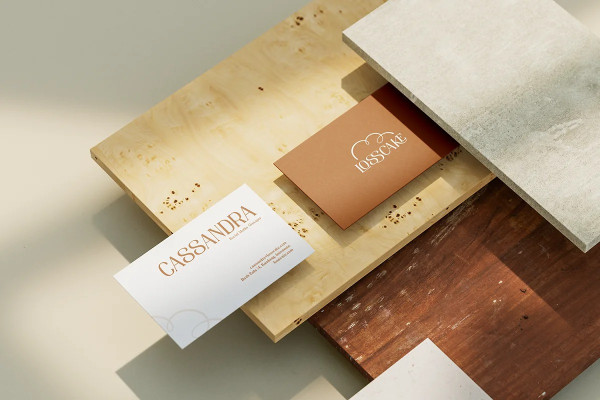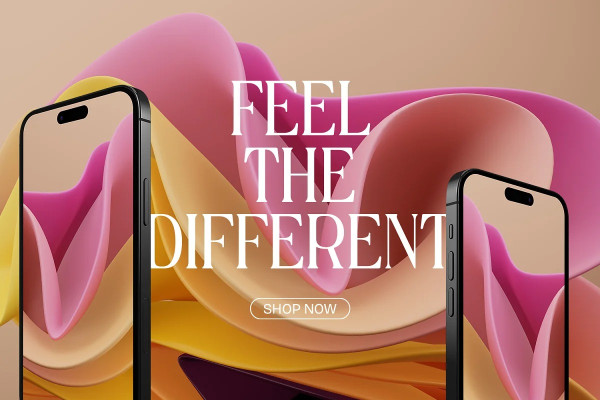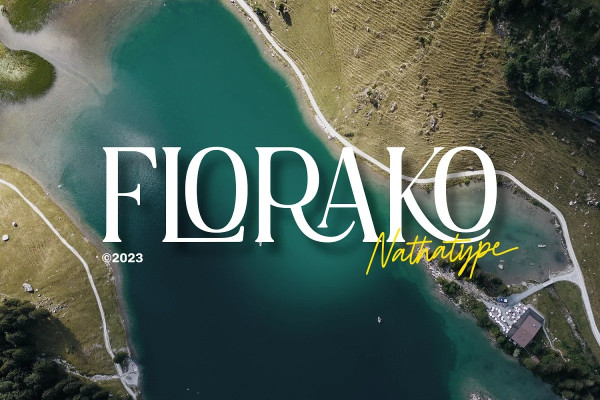
Florako Font
Florako Font is a mesmerizing serif font designed with an elegant and modern touch. With its lightweight, this typeface exudes a sense of delicacy and refinement, adding a touch of sophistication to your creative projects. The slender letterforms with precise lines and graceful curves embodies the perfect balance between elegance and modernity.
The clean and refined serifs lend a classic touch to the font, while the contemporary styling infuses it with a fresh and current vibe. This harmonious fusion creates a captivating aesthetic that is both timeless and on-trend. The light weight of Florako Font adds to its graceful and delicate appearance, making it ideal for projects that require a subtle and refined typography while maintaining its legibility. You can also enjoy the available features here.